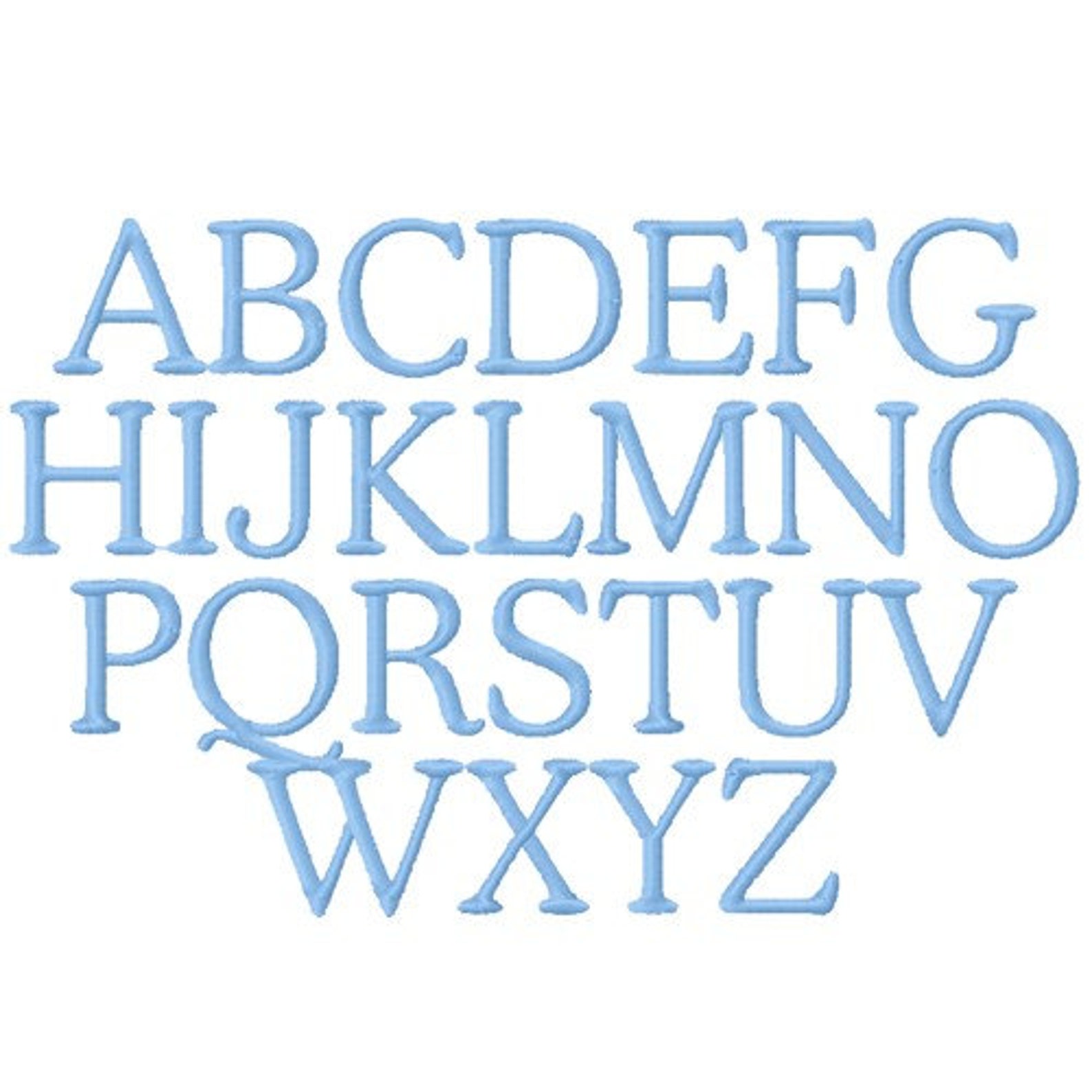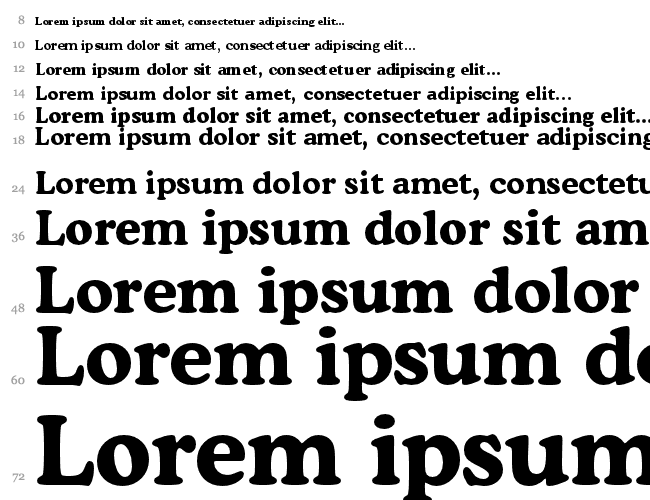
Cooper Lt Font
Cooper Lt Font - You can find more information about cooper lt bt light and it's character. It has been downloaded 79 times. Web cooper lt bt light. 2 users have given the font a rating of 4.5 out of 5. Sans serif, serif, old style serif; Buy from 30 checkout in. Web cooper lt bt font by 11640 views, 1321 downloads share share share. Download (zip 292.3 kb) add to favourites report this font. Cooper black was first released by the barnhart brothers & spindler foundry of chicago in 1922. Detailed information on the cooper light bt font:
Web cooper lt bt light. You can find more information about cooper lt bt light and it's character. Cooper lt bt light is a light truetype font. Download (zip 292.3 kb) add to favourites report this font. Sans serif, serif, old style serif; It has been downloaded 79 times. Detailed information on the cooper light bt font: Cooper black was first released by the barnhart brothers & spindler foundry of chicago in 1922. Web download the cooper light bt free font. Web buy cooper bt light desktop font from unknown on fonts.com.
Web buy cooper bt light desktop font from unknown on fonts.com. Cooper black was first released by the barnhart brothers & spindler foundry of chicago in 1922. 2 users have given the font a rating of 4.5 out of 5. Buy from 30 checkout in. Web download the cooper light bt free font. Detailed information on the cooper light bt font: You can find more information about cooper lt bt light and it's character. Download (zip 292.3 kb) add to favourites report this font. Cooper lt bt light is a light truetype font. It has been downloaded 79 times.
Cooper Lt BT Bold Download For Free, View Sample Text, Rating And
Cooper black was first released by the barnhart brothers & spindler foundry of chicago in 1922. You can find more information about cooper lt bt light and it's character. Web cooper lt bt light. Web download the cooper light bt free font. Sans serif, serif, old style serif;
Cooper Lt BT Bold truetype font
2 users have given the font a rating of 4.5 out of 5. You can find more information about cooper lt bt light and it's character. Cooper lt bt light is a light truetype font. Detailed information on the cooper light bt font: Buy from 30 checkout in.
Cooper Lt BT Bold truetype font
Buy from 30 checkout in. You can find more information about cooper lt bt light and it's character. Web cooper lt bt font by 11640 views, 1321 downloads share share share. Sans serif, serif, old style serif; Detailed information on the cooper light bt font:
Cooper Lt BT Light Download For Free, View Sample Text, Rating And
Web cooper lt bt light. 2 users have given the font a rating of 4.5 out of 5. Cooper black was first released by the barnhart brothers & spindler foundry of chicago in 1922. Web download the cooper light bt free font. Detailed information on the cooper light bt font:
No .05 Cooper Lt. Embroidery Font 1/2in 1in 1.5in 2in Etsy
Detailed information on the cooper light bt font: Buy from 30 checkout in. 2 users have given the font a rating of 4.5 out of 5. Cooper black was first released by the barnhart brothers & spindler foundry of chicago in 1922. Web cooper lt bt light.
Download free Cooper Lt BT Light font
Buy from 30 checkout in. Web cooper lt bt light. Web buy cooper bt light desktop font from unknown on fonts.com. Detailed information on the cooper light bt font: Cooper lt bt light is a light truetype font.
Cooper Lt BT Light truetype font
Web cooper lt bt font by 11640 views, 1321 downloads share share share. Web buy cooper bt light desktop font from unknown on fonts.com. Buy from 30 checkout in. Web cooper lt bt light. Cooper lt bt light is a light truetype font.
Download Cooper Lt BT Bold Italic font free CooperLtBTBoldItalic.ttf font
Detailed information on the cooper light bt font: Download (zip 292.3 kb) add to favourites report this font. Web cooper lt bt font by 11640 views, 1321 downloads share share share. Web download the cooper light bt free font. 2 users have given the font a rating of 4.5 out of 5.
2 Users Have Given The Font A Rating Of 4.5 Out Of 5.
Web buy cooper bt light desktop font from unknown on fonts.com. Detailed information on the cooper light bt font: Cooper black was first released by the barnhart brothers & spindler foundry of chicago in 1922. Buy from 30 checkout in.
You Can Find More Information About Cooper Lt Bt Light And It's Character.
Cooper lt bt light is a light truetype font. Web cooper lt bt light.